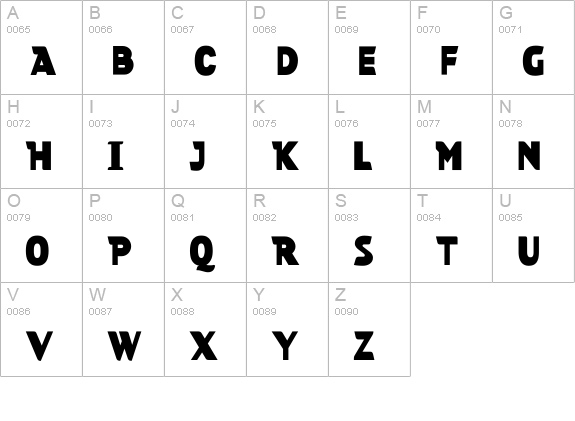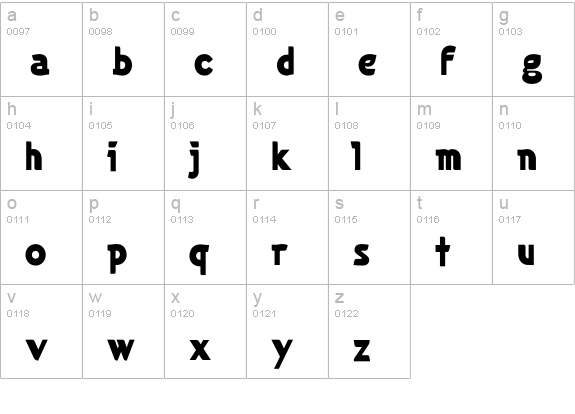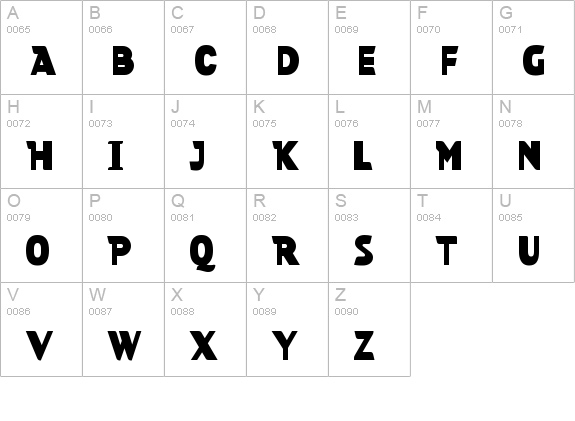
Cuban-Black is a maximum-weight, dramatic variant in the Cuban typeface family \xE2\x80\x94 well suited to maximum-impact headlines, posters, and packaging.
Cuban-Black font is a bold and stylish typeface that exudes confidence and sophistication. Its strong, thick strokes make a statement while maintaining a sense of elegance. Perfect for headlines, titles, and branding projects, this font demands attention and leaves a lasting impression. The best part? Cuban-Black font is free to download at FontsMarket.com, making it easily accessible for all designers and creatives looking to elevate their projects with a touch of boldness and flair. Don't miss out on this striking typeface that will make your designs stand out from the crowd.